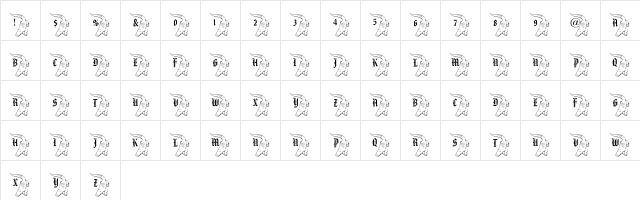
pf_aligator2 Regular
Design Context for pf_aligator2 Typeface
pf_aligator2 is a composed and adaptable typeface that performs quietly and consistently across a wide range of design contexts.